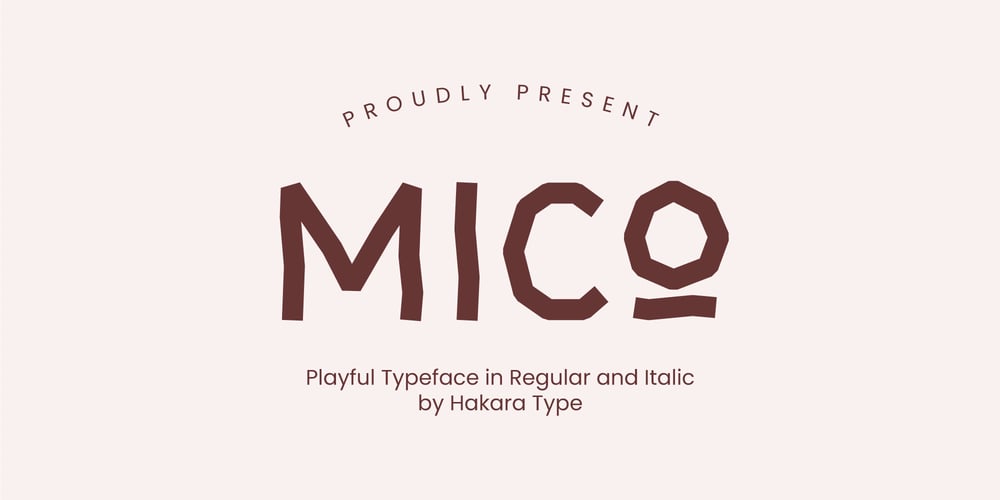
Mico Font Family was designed by Kanisius Adi Klau and published by Hakara Type. Mico contains 2 styles and family package options. Mico typeface is a unique and diverse font with a distinctive zig-zag shape. It features fun, bold, and playful characteristics. With its fun, bold, and playful character, Mico typeface can be a part of your design projects, from branding, advertising, logos, headlines, posters, and more.